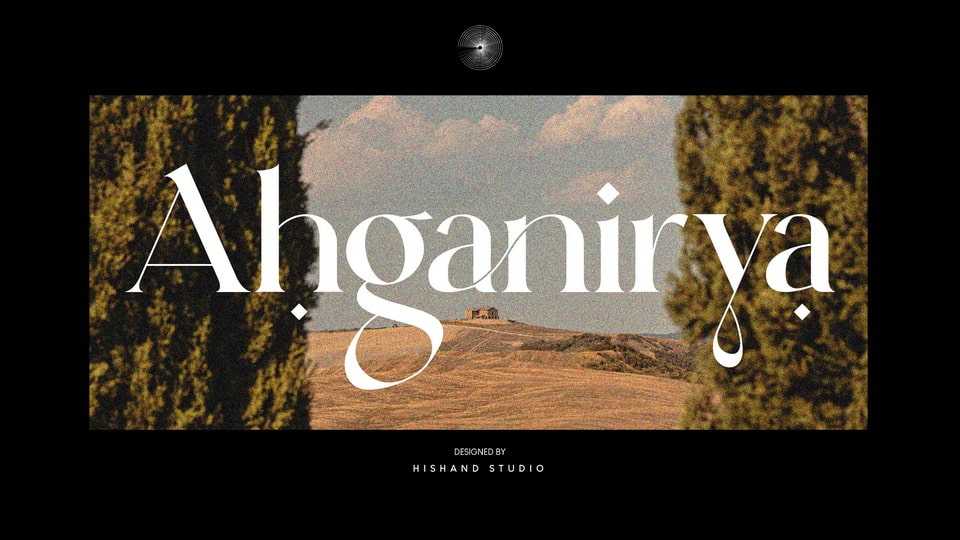
Download Ahganirya font, a display serif that boasts a modern, minimalist design, making it perfect for businesses looking for a clean and sophisticated look. Ahganirya’s elegant curves and sharp edges make it a stunning choice for logos, business cards, and other design projects.